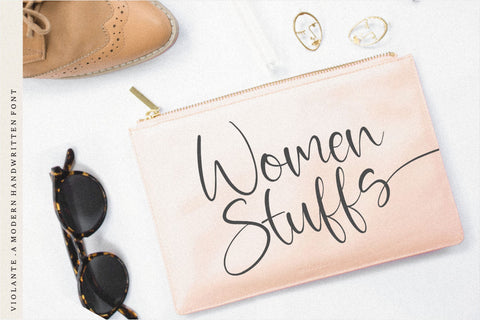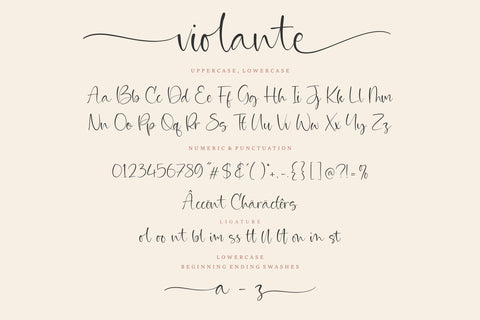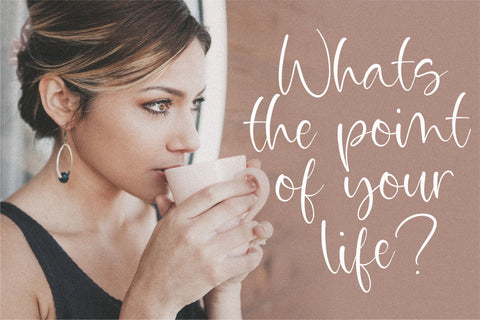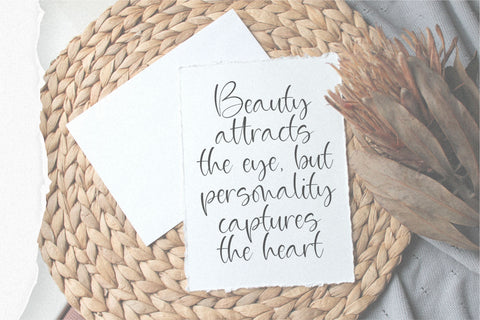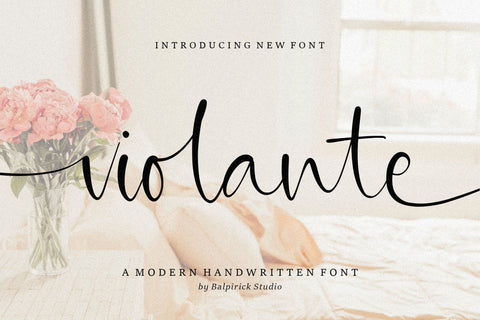
Violante Modern Handwritten Font
Proudly Present, Violante Font.
Violante is a Modern Handwritten Font.
Violante is perfect for product packaging, branding project, megazine, social media, wedding, or just used to express words above the background.
Lowercase font Stylistic Alternates Ligatures Symbols & Punctuation OpenType Features.